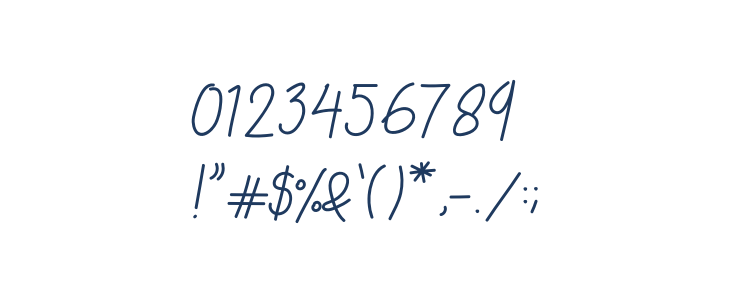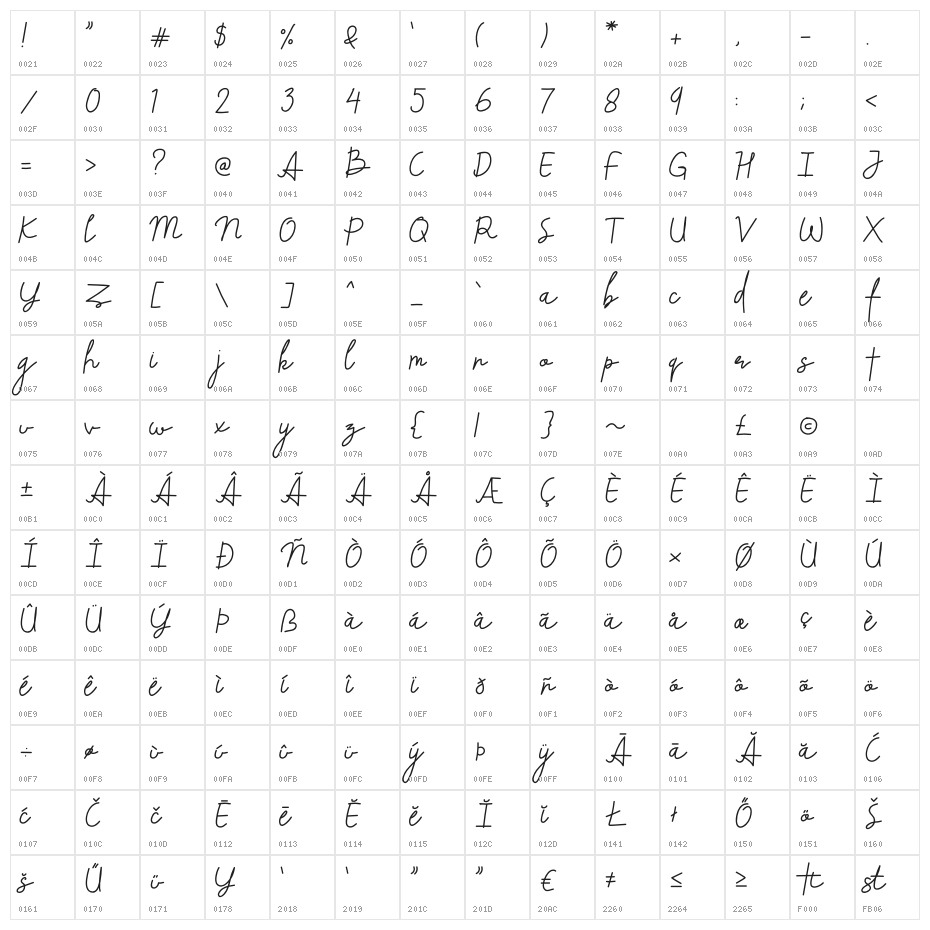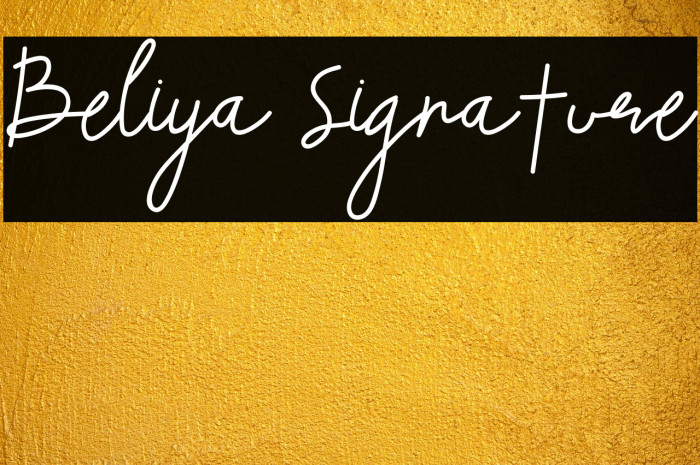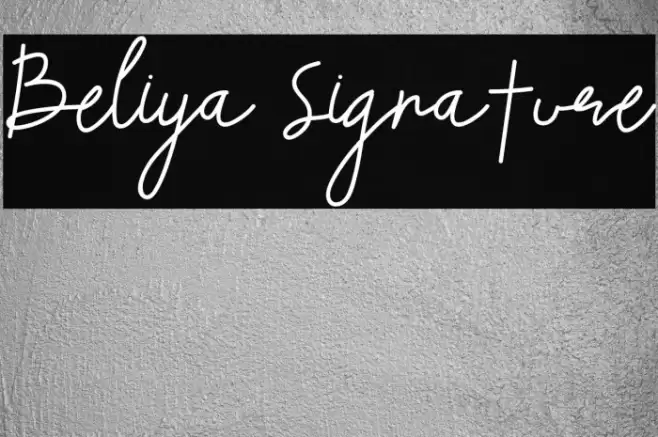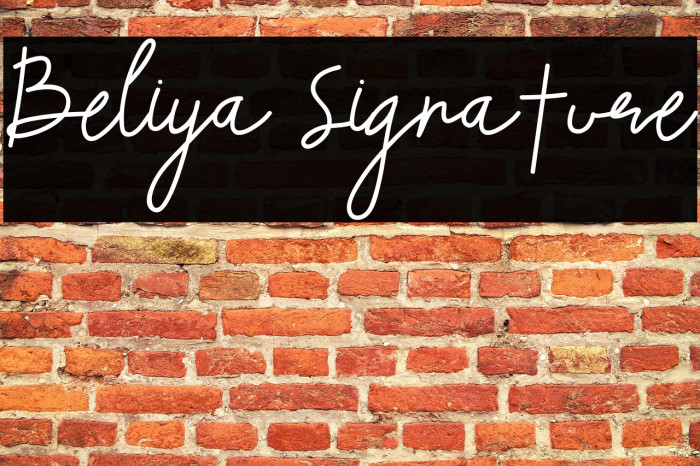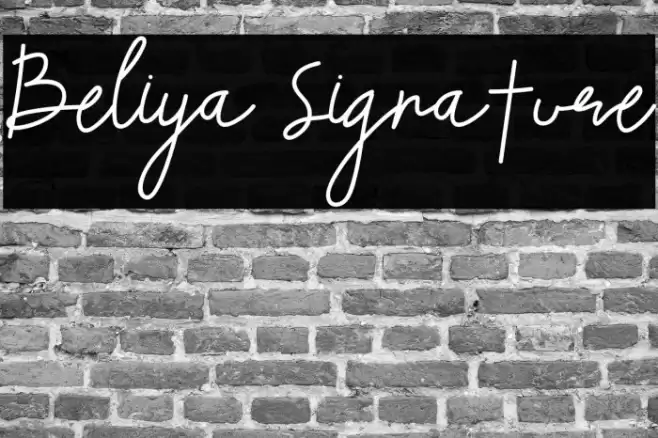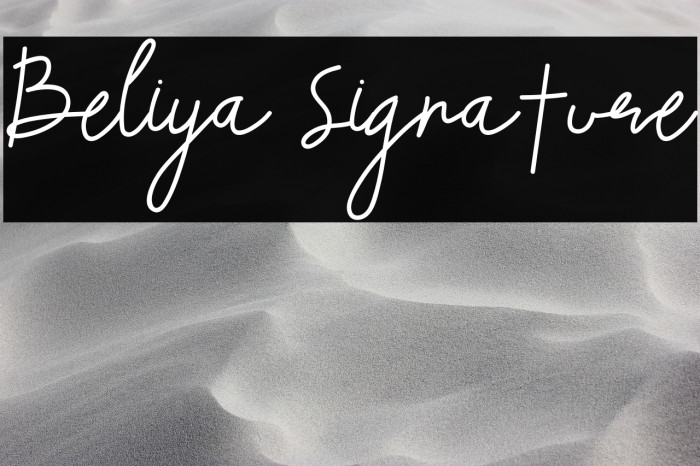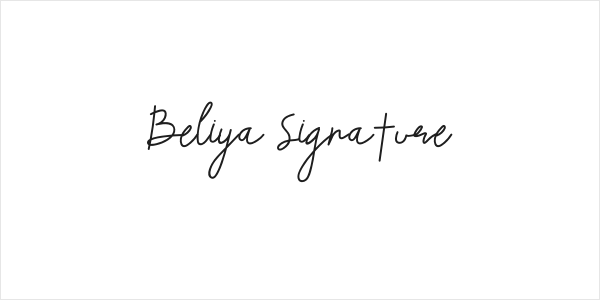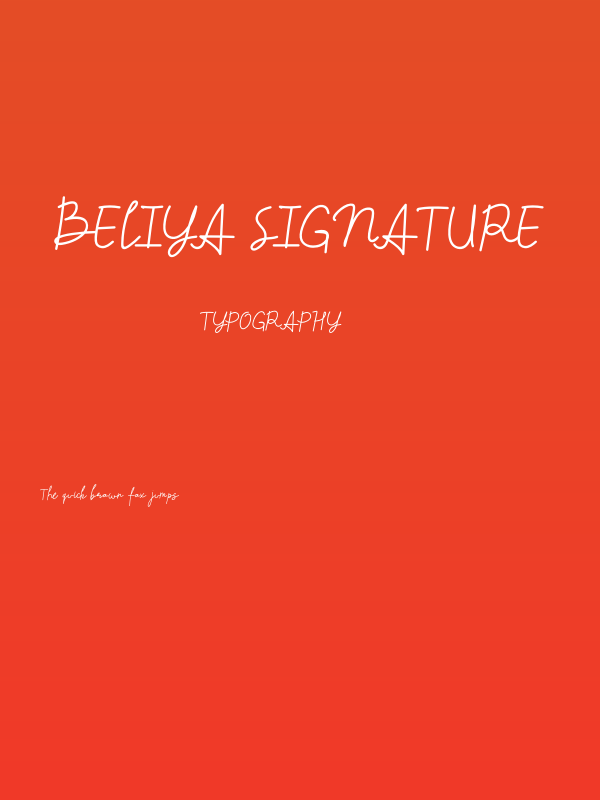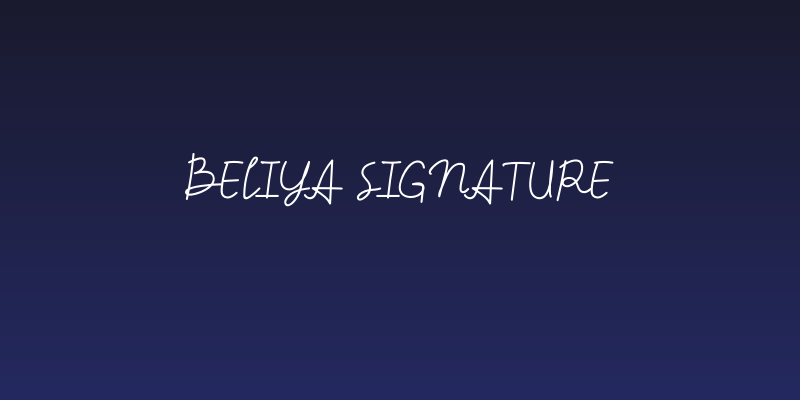
Beliya Signature Font
Beliya Signature Description
This font exudes a modern, handwritten style with a fluid and elegant appearance. The characters are connected in a cursive manner, giving it a personal and artistic touch. The uppercase letters maintain a consistent height, while the lowercase letters have a playful and dynamic flow. The numerals are clear and legible, complementing the overall aesthetic. Special characters are seamlessly integrated, maintaining the font's cohesive look. The strokes are smooth and slightly varied in thickness, adding to the natural handwriting effect.
| Proposed Projects | Ideal for personal branding, wedding invitations, greeting cards, and artistic projects. |